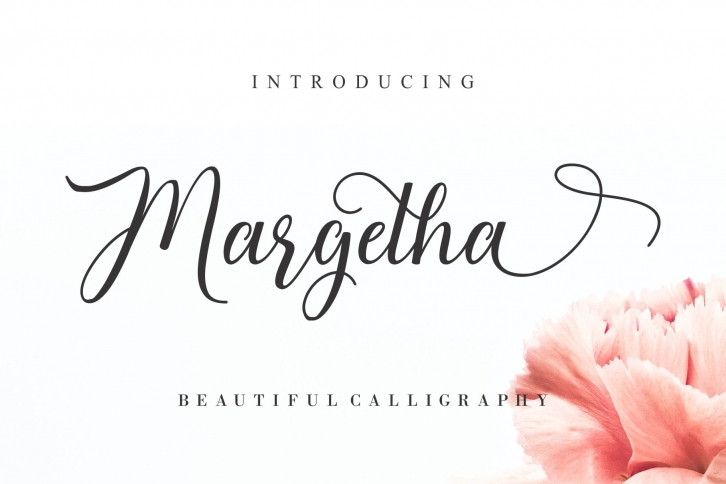
Margetha Beautiful Calligraphy is a beautiful font that was designed by MJB Letters. It's a great choice for designers and creatives who need such a font. It was released on April 15, 2020 and the file size is 9.84 MB. Margetha Beautiful Calligraphy may give a more youthful, expressive and casual look to your project. It is a very beautiful, refined, elegant, and high-quality font.